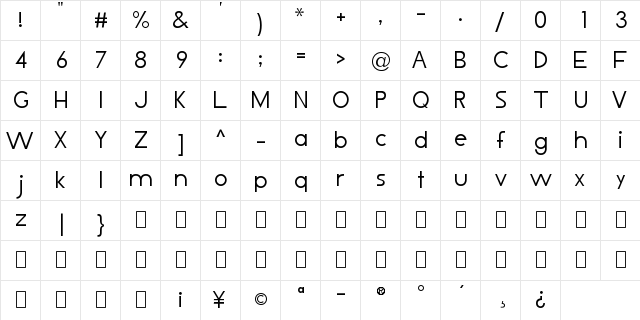
LJ Design Studios IS Thin
| Foundry | LJ-Design Studios |
| Designer | LJ-Design Studios Group |
Design Context for LJ Design Studios IS Typeface
LJ Design Studios IS takes a measured approach to typography — its balanced proportions and neutral character make it a reliable workhorse for both digital and print work. Its slender proportions lend an understated elegance to any composition.
Pro Tip: Pair LJ Design Studios IS with a font of contrasting weight or personality to build a more expressive typographic hierarchy.